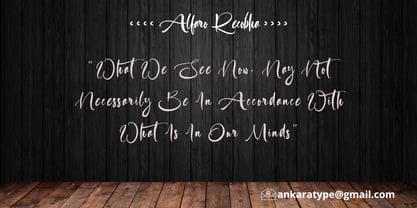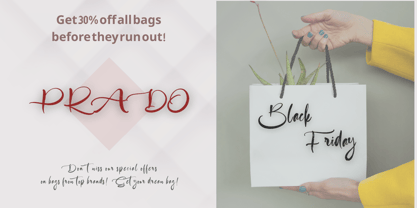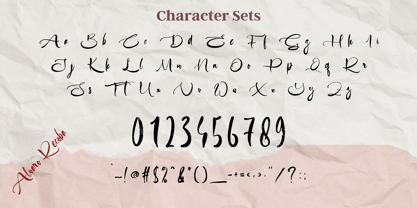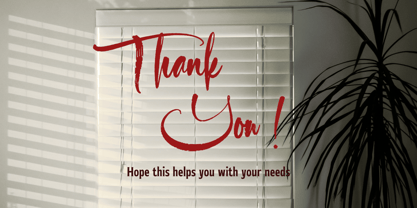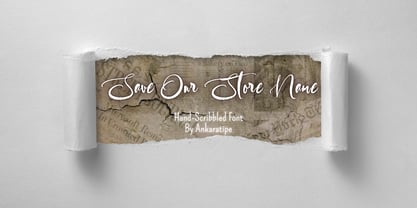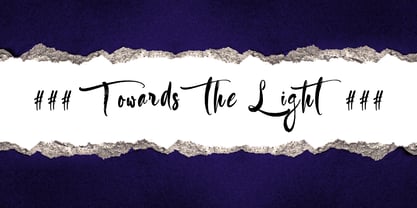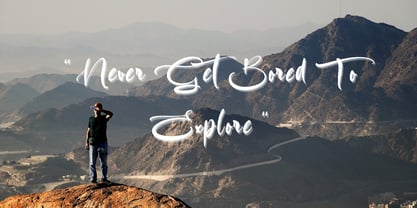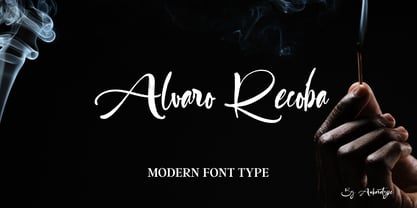
Alvaro Recoba
The Alvaro Recoba Font Family was designed by Sayuti Yuti and published by Saytype. Alvaro Recoba contains 1 styles. More about this family
Alvaro Recoba is a modern script font with bold strokes, clean curves, and confident edges. It covers all the basic characters (letters, numbers, and punctuation) and is easy to read. Inspired by the natural flow of handwritten calligraphy, this font combines expressive movement with stylish clarity. This font is suitable for a variety of projects, from branding, packaging, invitations, social content, to websites.
These modern and unique traditional handwritten characters will be helpful for those who want to handwrite for various needs. They will also make your work look fantastic with the Alvaro Recoba font style.
Includes:
Uppercase & lowercase letters
Ligatures
Numbers & punctuation
Multilingual support
Add a personal and modern touch to your next design and project with Alvaro Recoba.